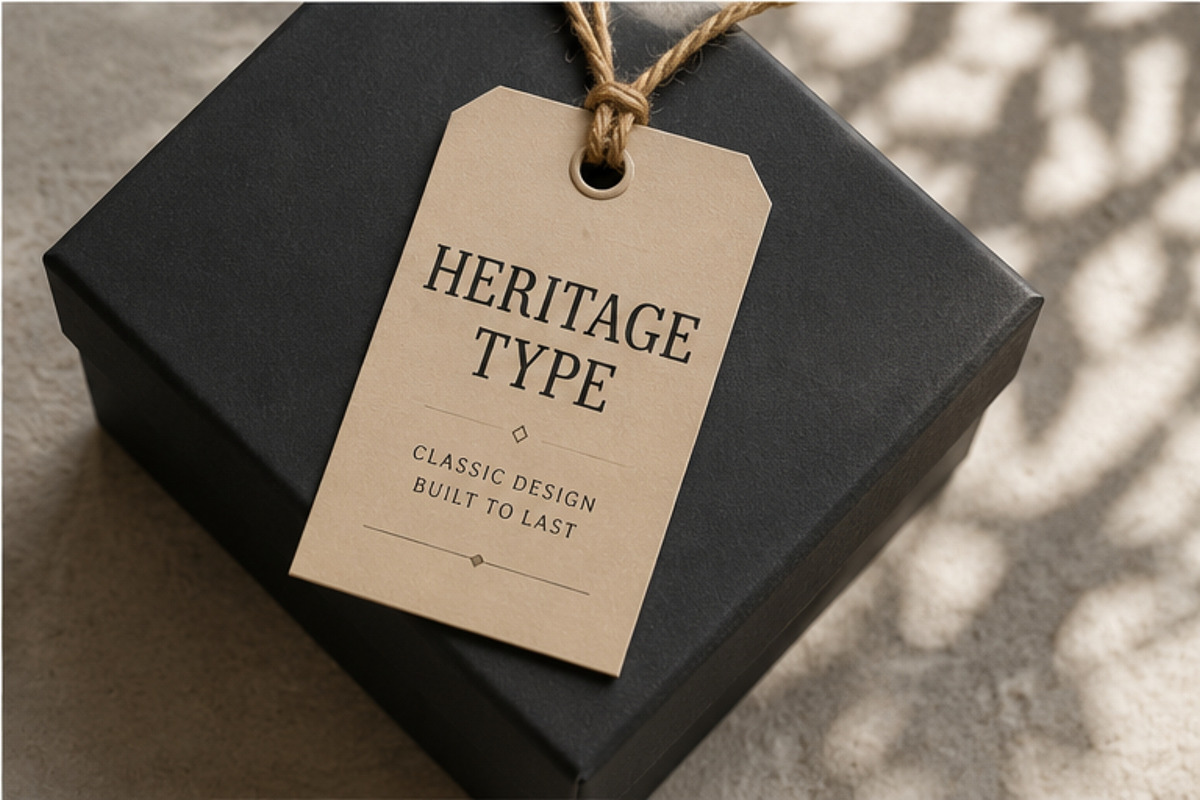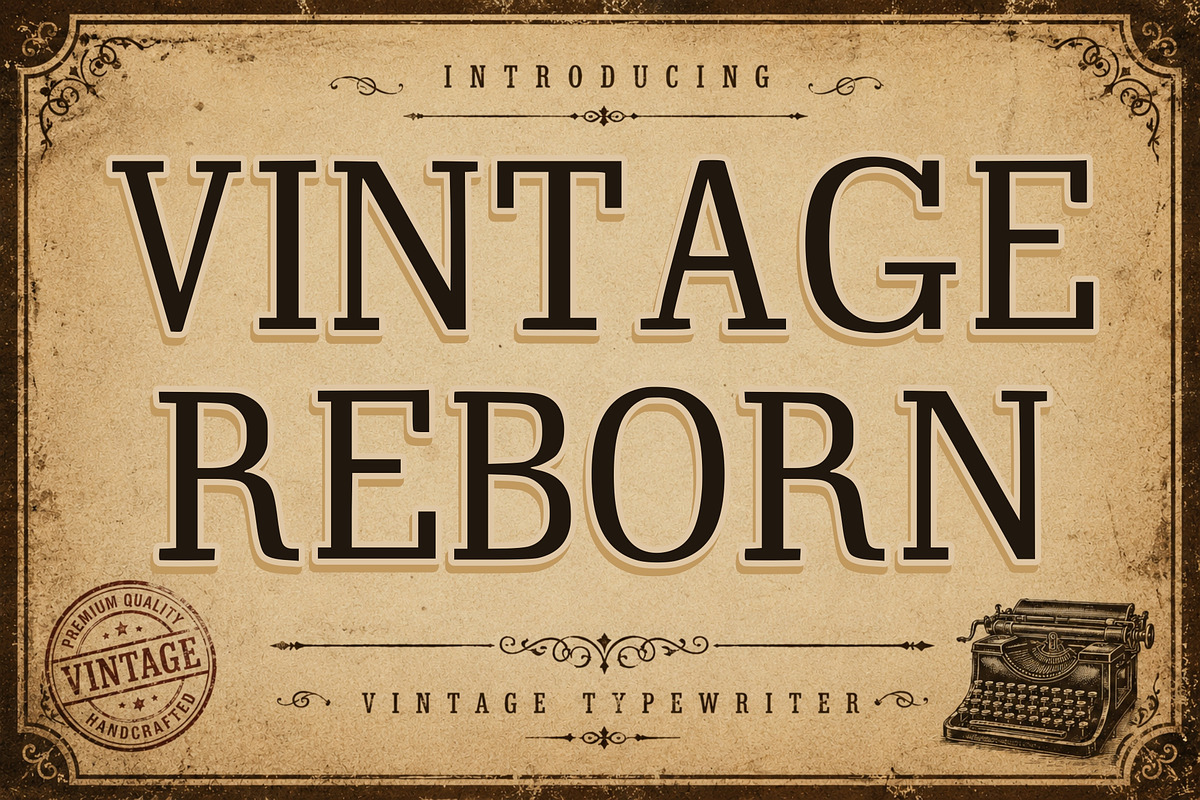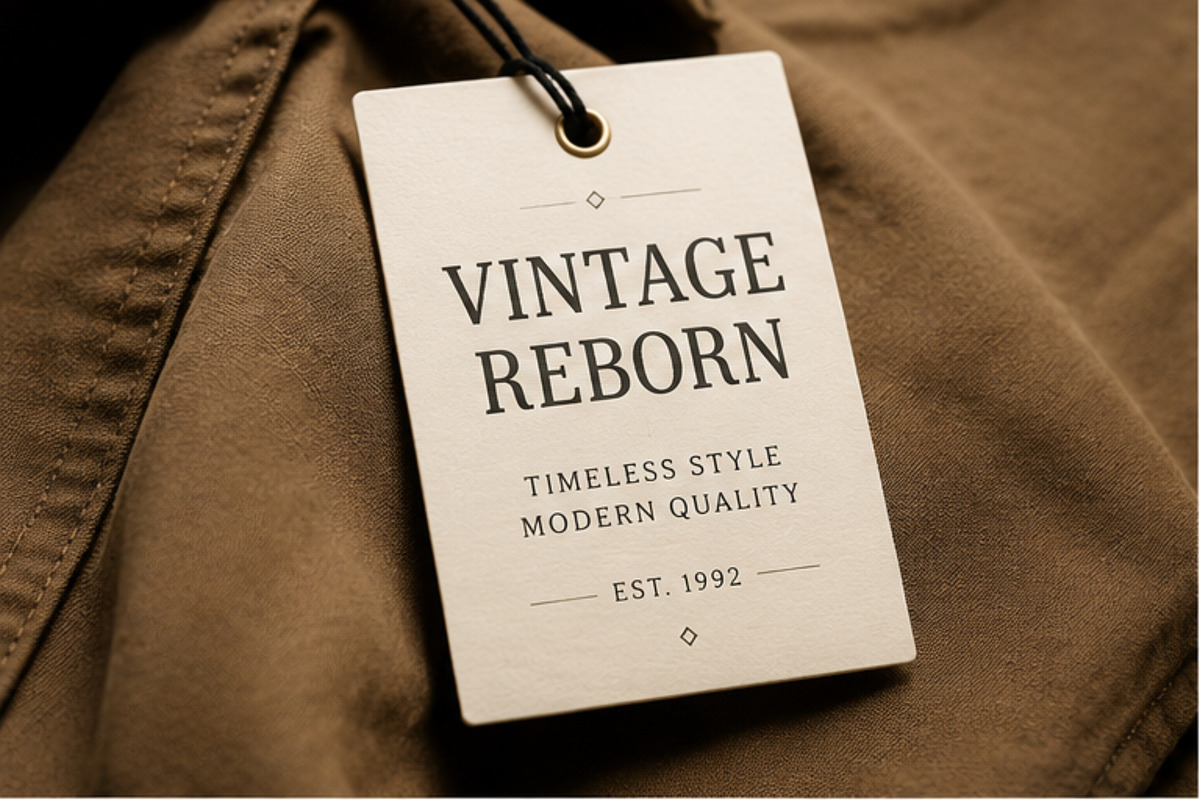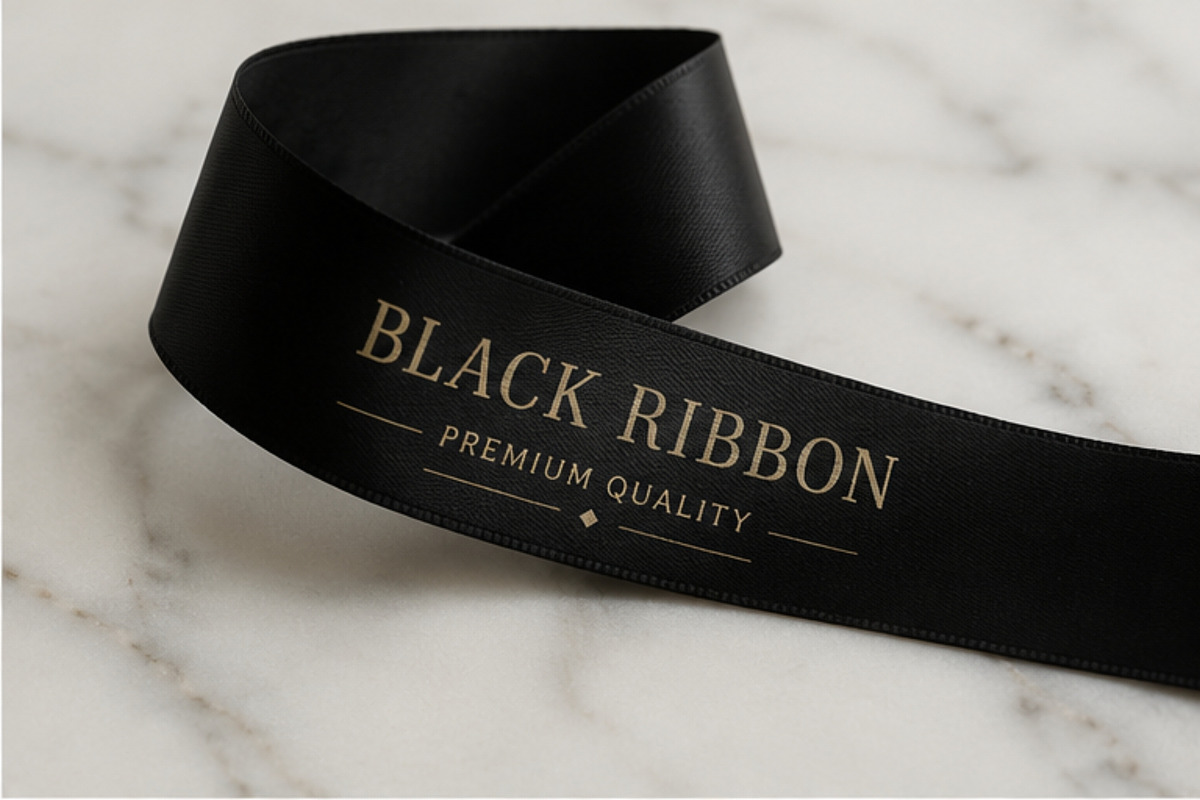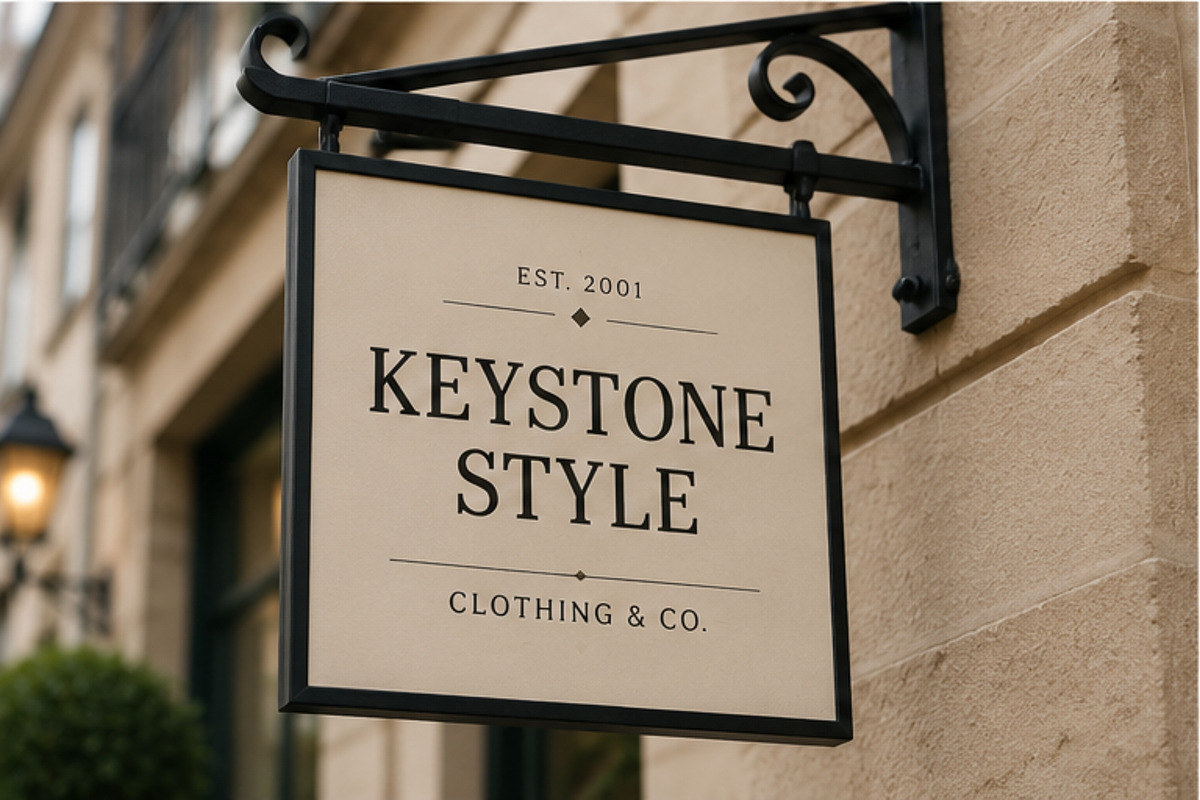
Vintage Reborn
Vintage Reborn is a refined vintage serif display font created for designers who love timeless, sophisticated typography. Its classic serif structure gives projects a strong heritage character while maintaining a clean and professional appearance.
Inspired by old-school typography, heritage brands, classic signage, editorial layouts, vintage packaging, and traditional print design, Vintage Reborn is ideal for creating elegant and memorable visual identities.
Use Vintage Reborn for logos, branding, packaging, labels, clothing tags, invitations, posters, editorial designs, badges, signage, book covers, stationery, and social media graphics.
Its versatile character works beautifully for both luxury vintage branding and modern minimalist designs.